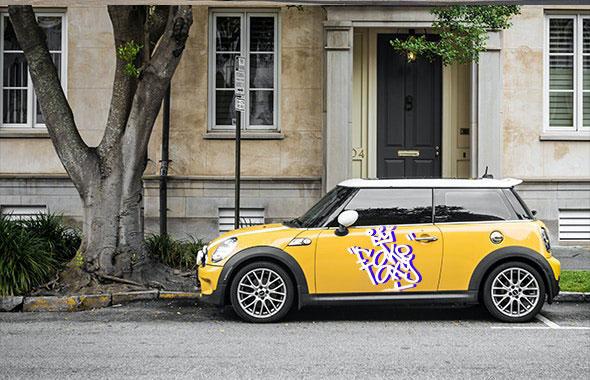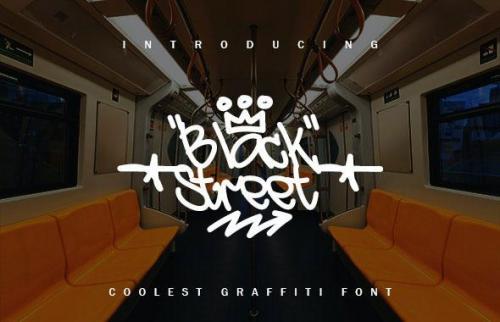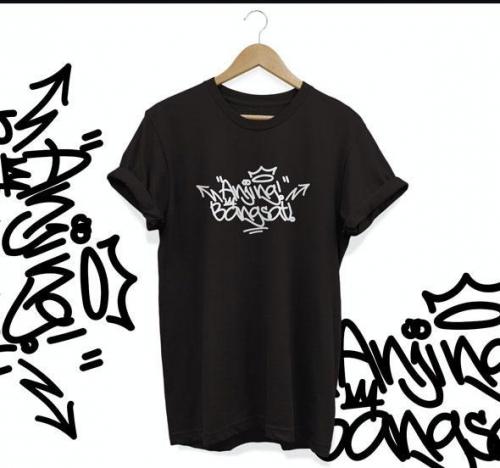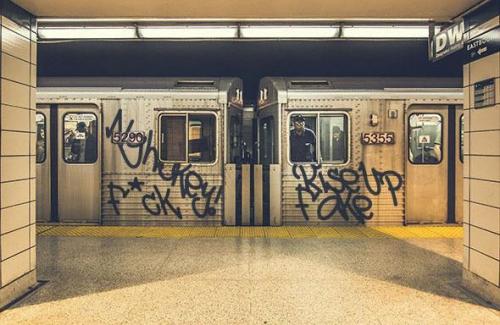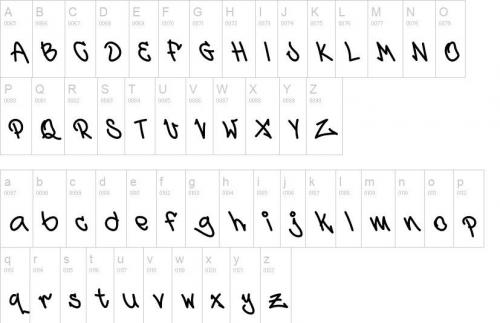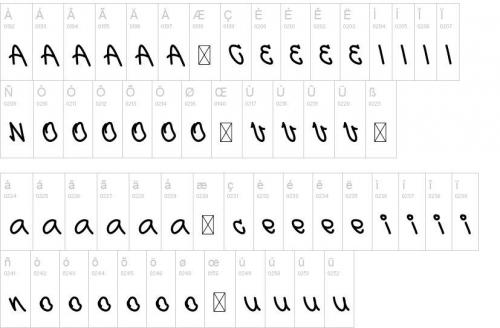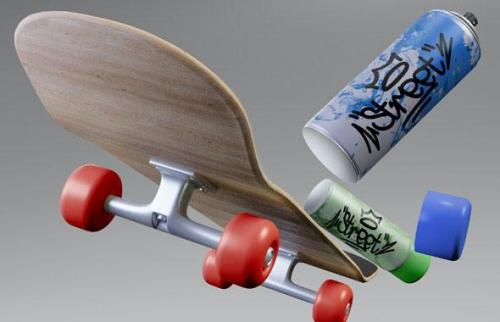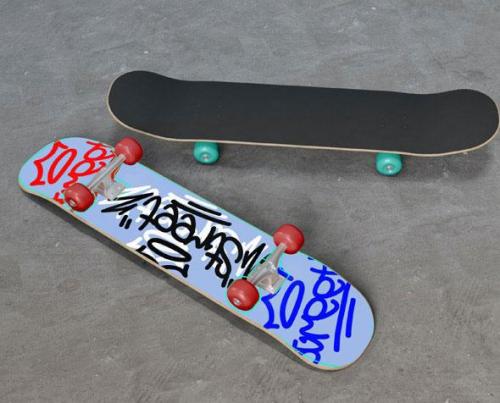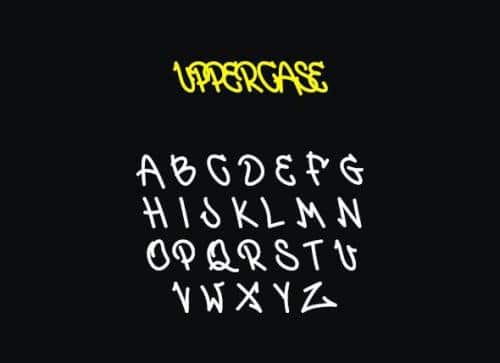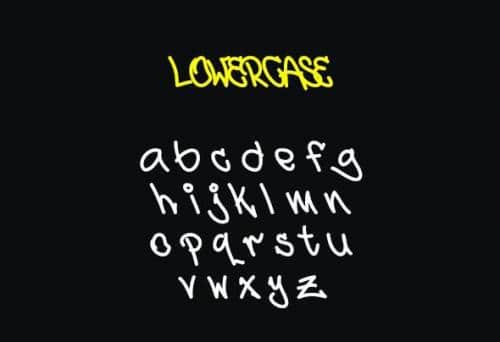
BlackStreet is a cool, graffiti styled display font. Add this font to each of your urban or street designs and they will instantly stand out.
- Designer: Esa Nugroho